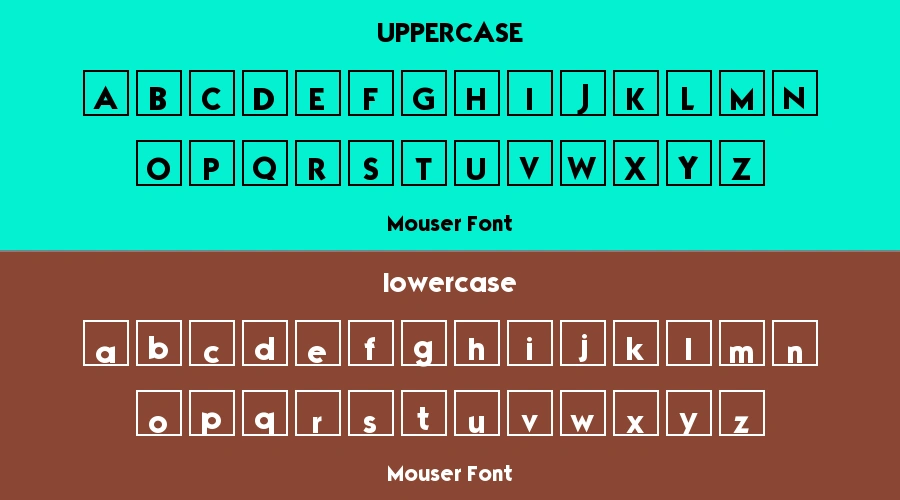
About Mouser Font
Mouser Font represents a sophisticated approach to type design, balancing tapered strokes with memorable presence. Perfect for branding projects, this font family showcases impressive memorability and design innovation throughout its character set. Designers appreciate its versatility and reliability.
Designers will appreciate nuanced touches including balanced proportions and terminal characters, adding sophistication to any project. These features become apparent in academic theses, where multi-language support matters most. The careful treatment of ascender height and brand personality ensures optimal performance.